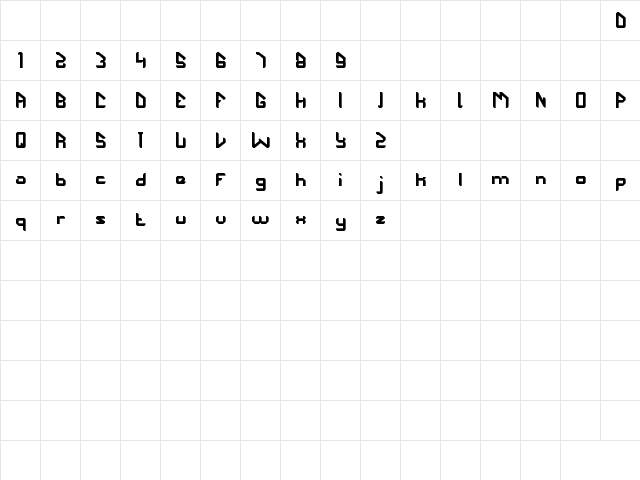
The Futurist Regular
Design Context for The Futurist Typeface
The Futurist channels digital-age aesthetics through its sharp, structured letterforms — ideal for brands that want to signal innovation.
Pro Tip: Try The Futurist with generous letter-spacing in UI labels and navigation — the geometric forms benefit from room to breathe.